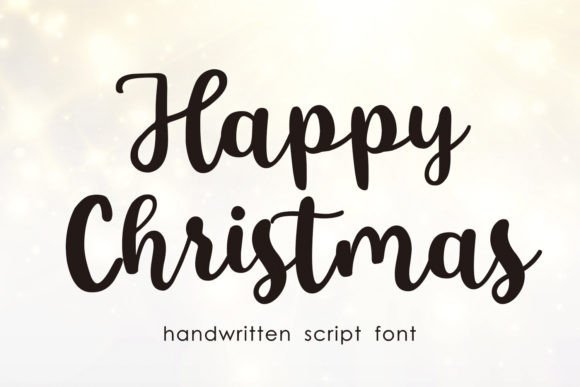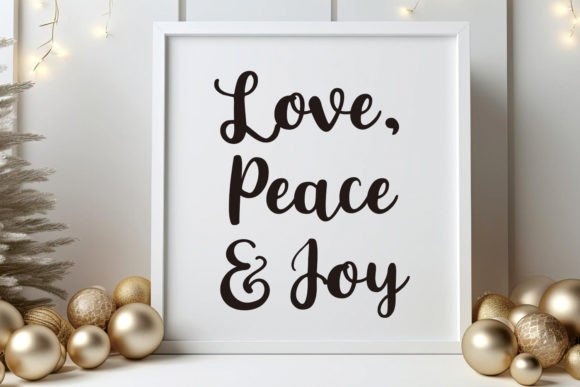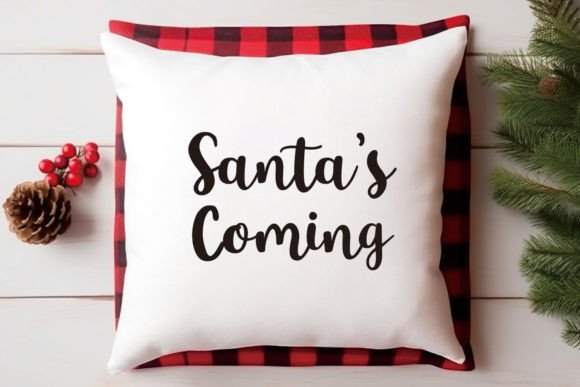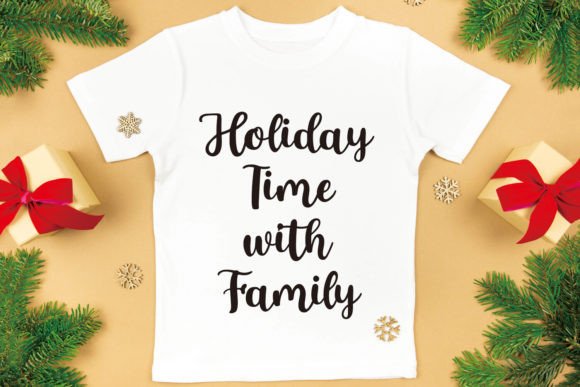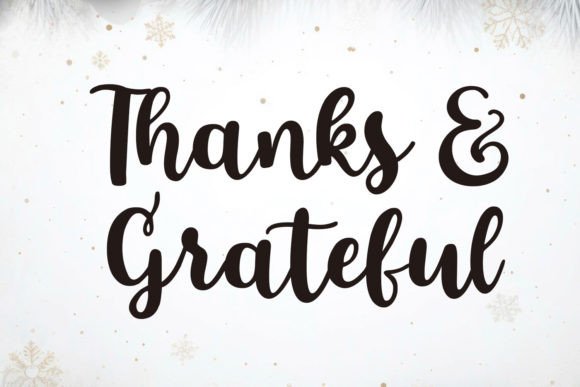
Happy Christmas Font
Happy Christmas is a charming script handwritten font that embodies the essence of the holiday season. Its style exudes joy, warmth, and a playful elegance, making it a perfect choice for capturing the spirit of Christmas, Thanksgiving, and the overall festive ambiance.
This font carries an inherent sense of celebration and is ideal for conveying holiday greetings through beautifully crafted cards, decorative elements, and personalized lettering for various craft projects and embroidery.
With its graceful yet cheerful strokes, the Happy Christmas font brings a sense of whimsy and festivity to any design related to Christmas, serving as an excellent option for infusing joy and a touch of elegance into seasonal decorations, craft projects, and greeting cards. Its versatility allows it to be used across a spectrum of design applications, adding a delightful charm and festive vibe to any project associated with the holiday season.